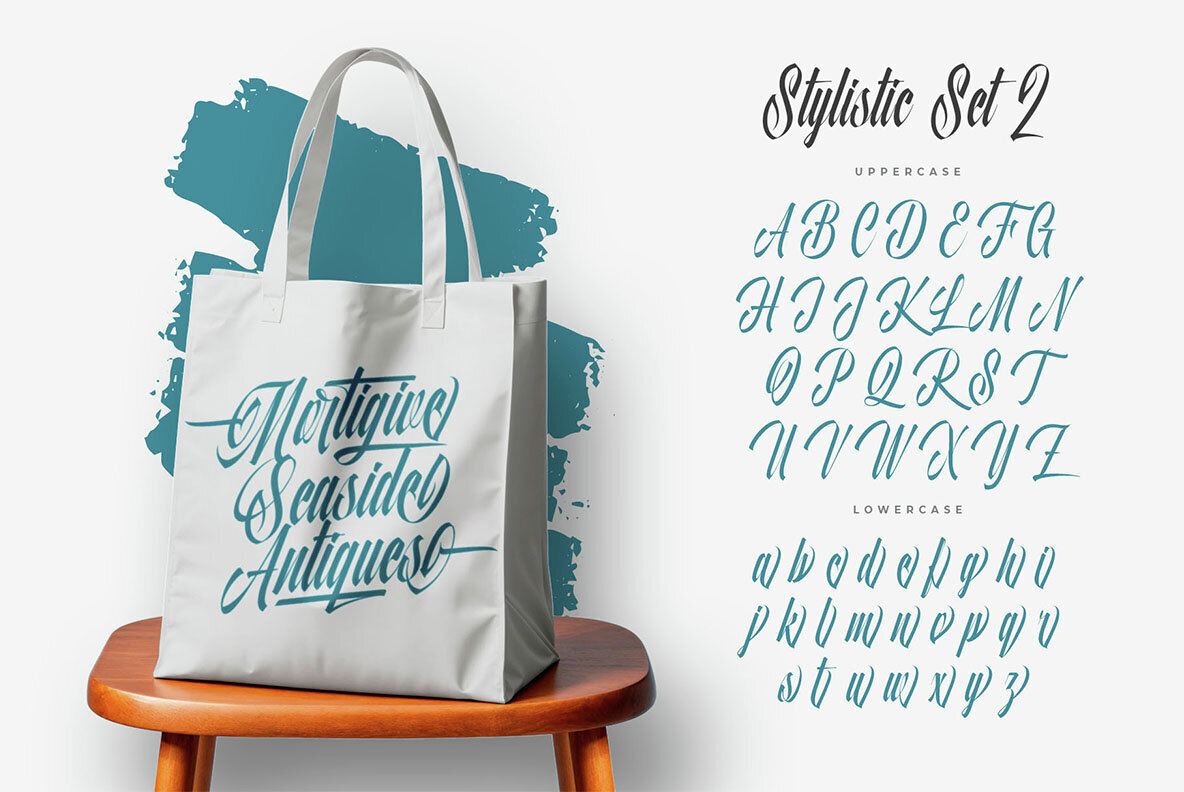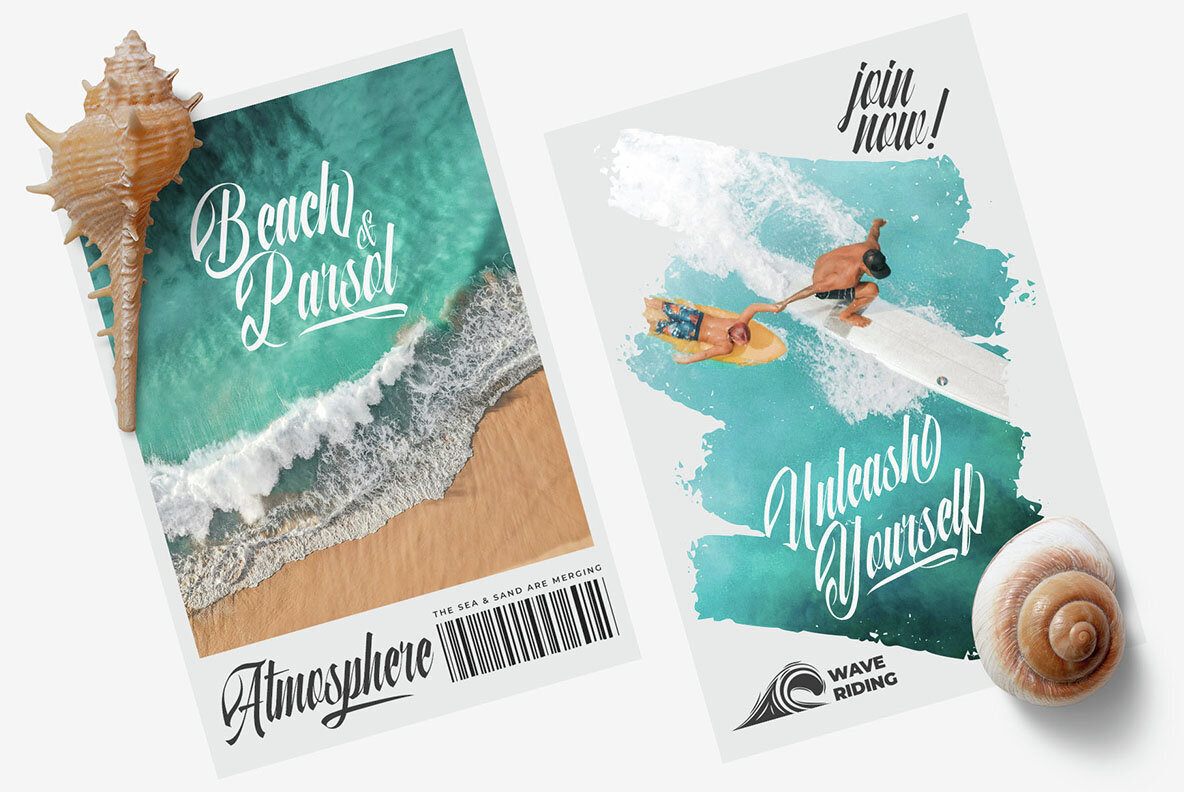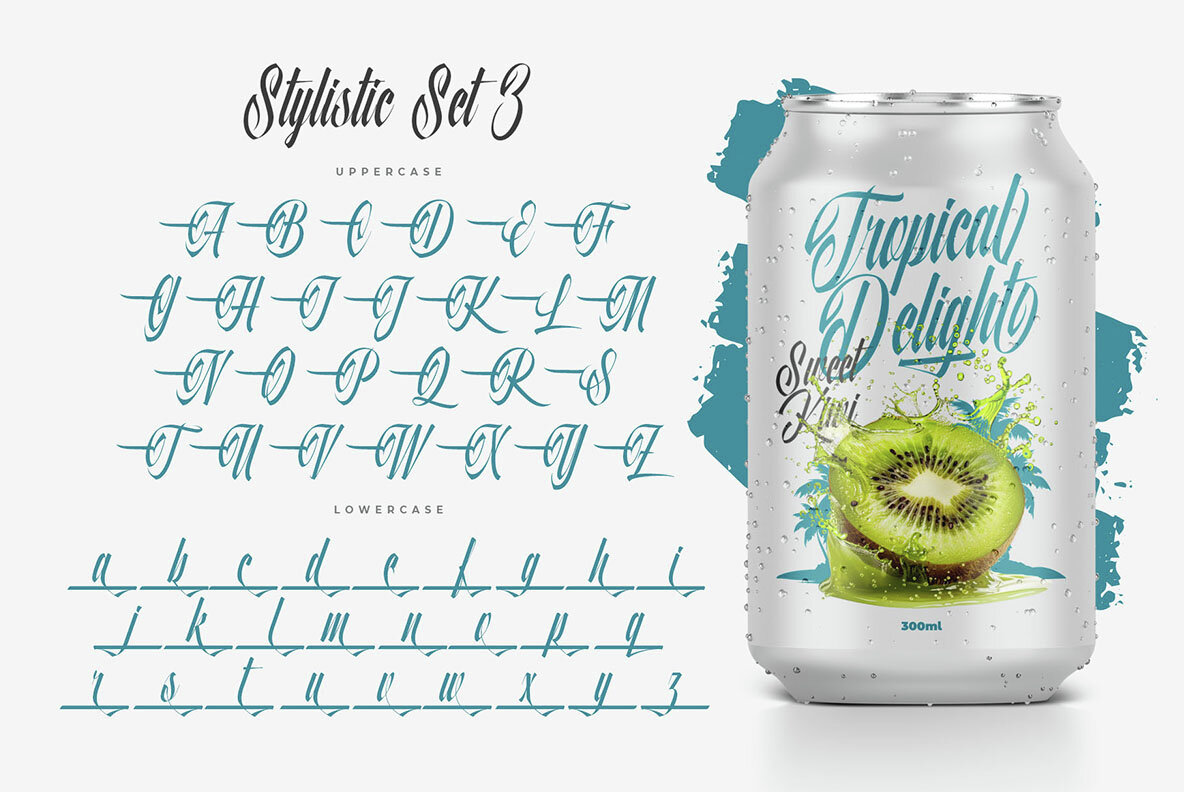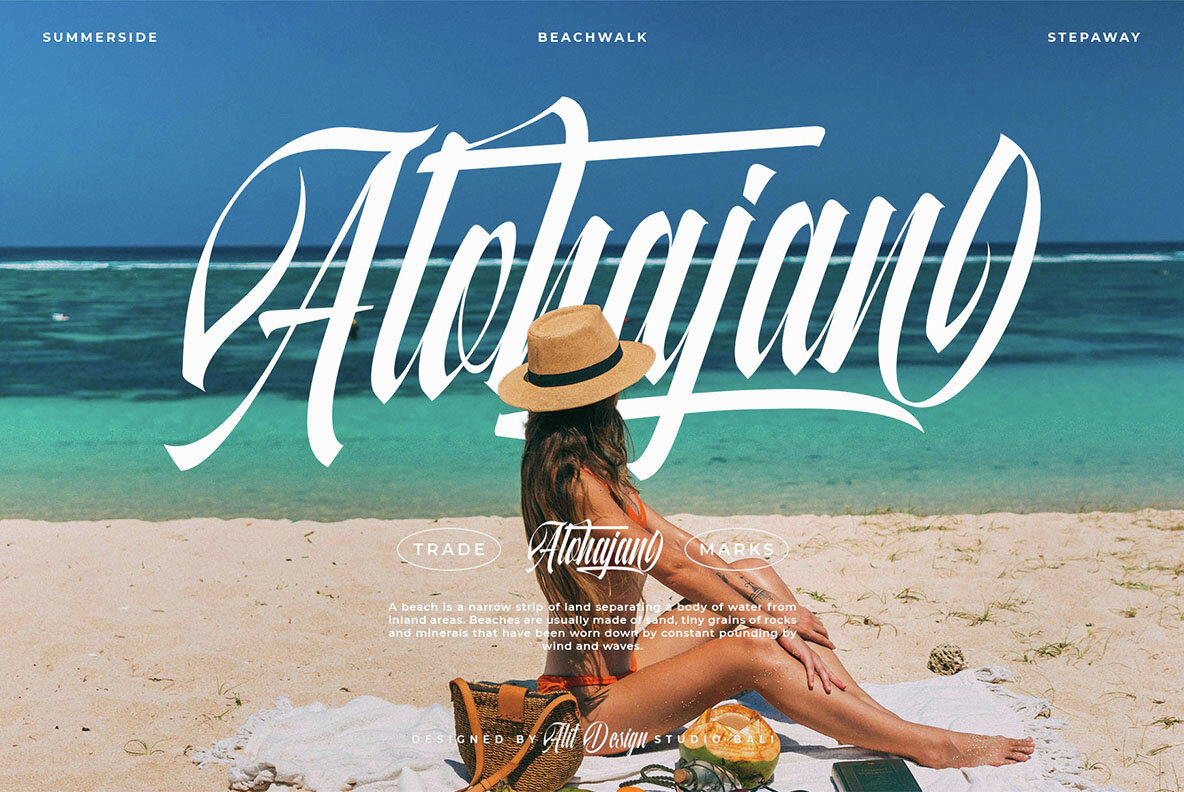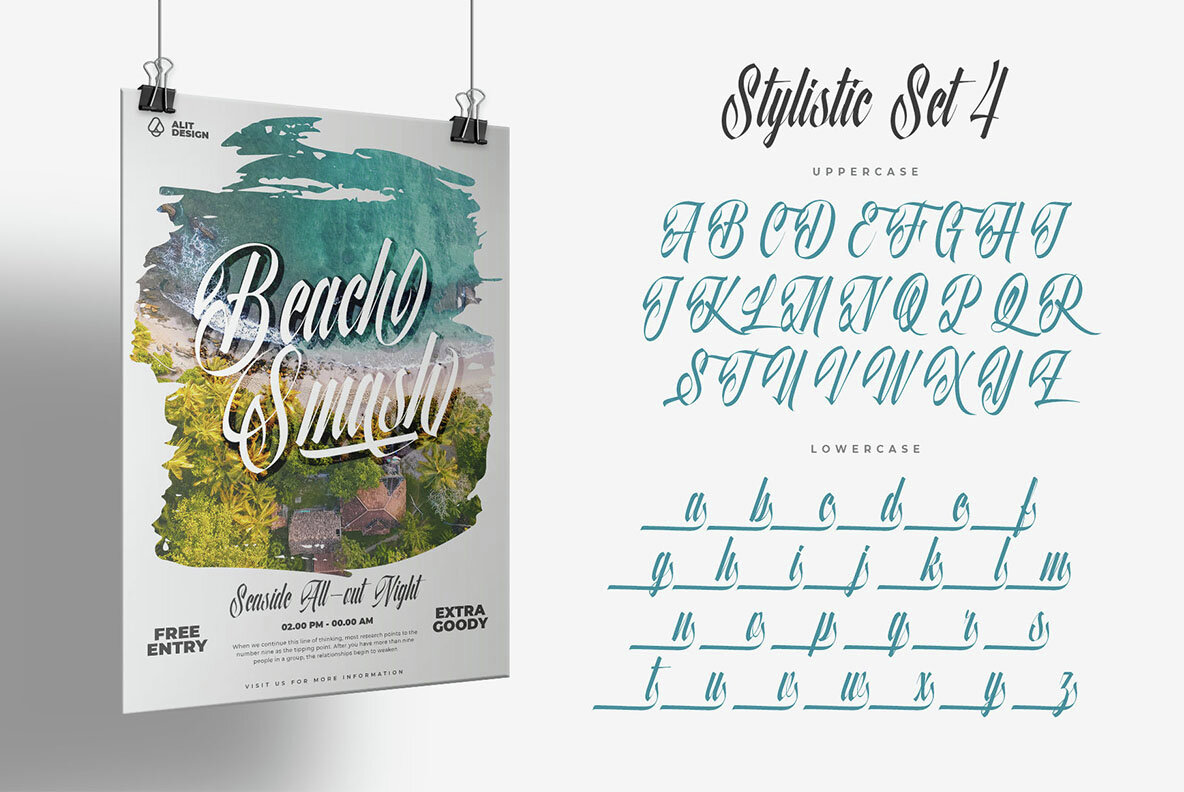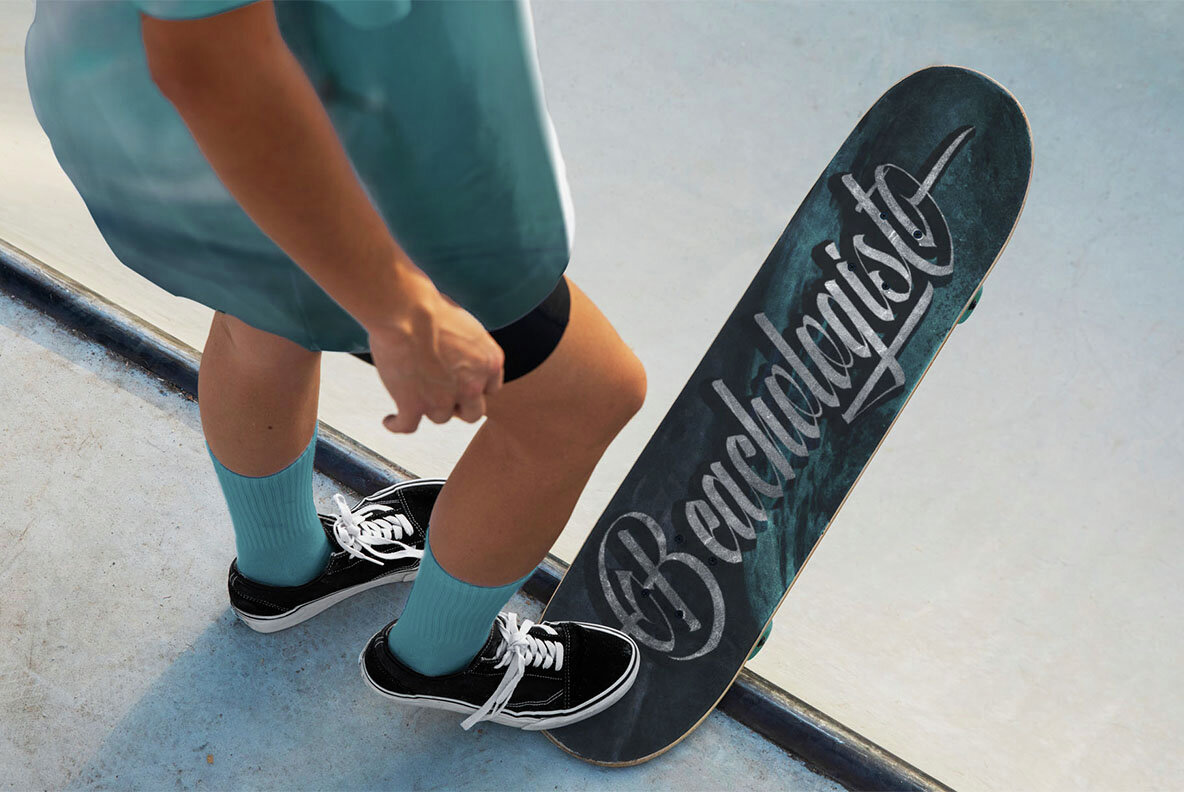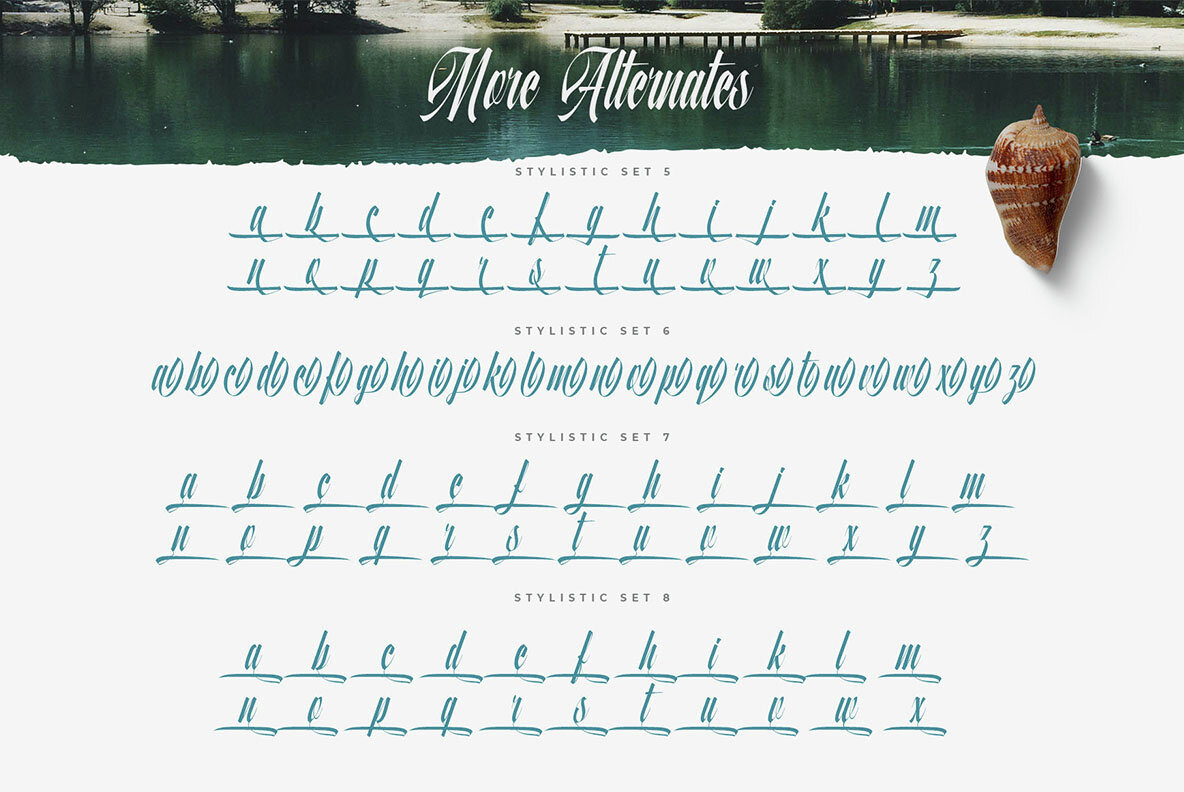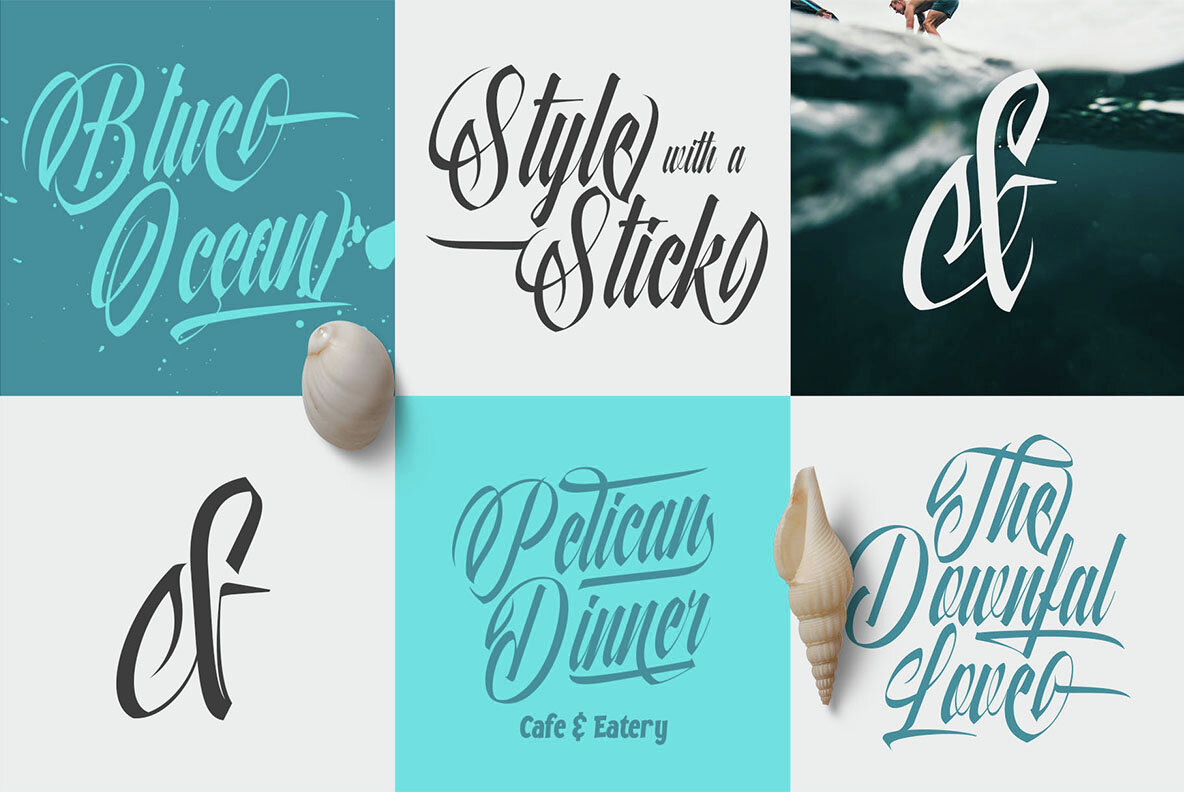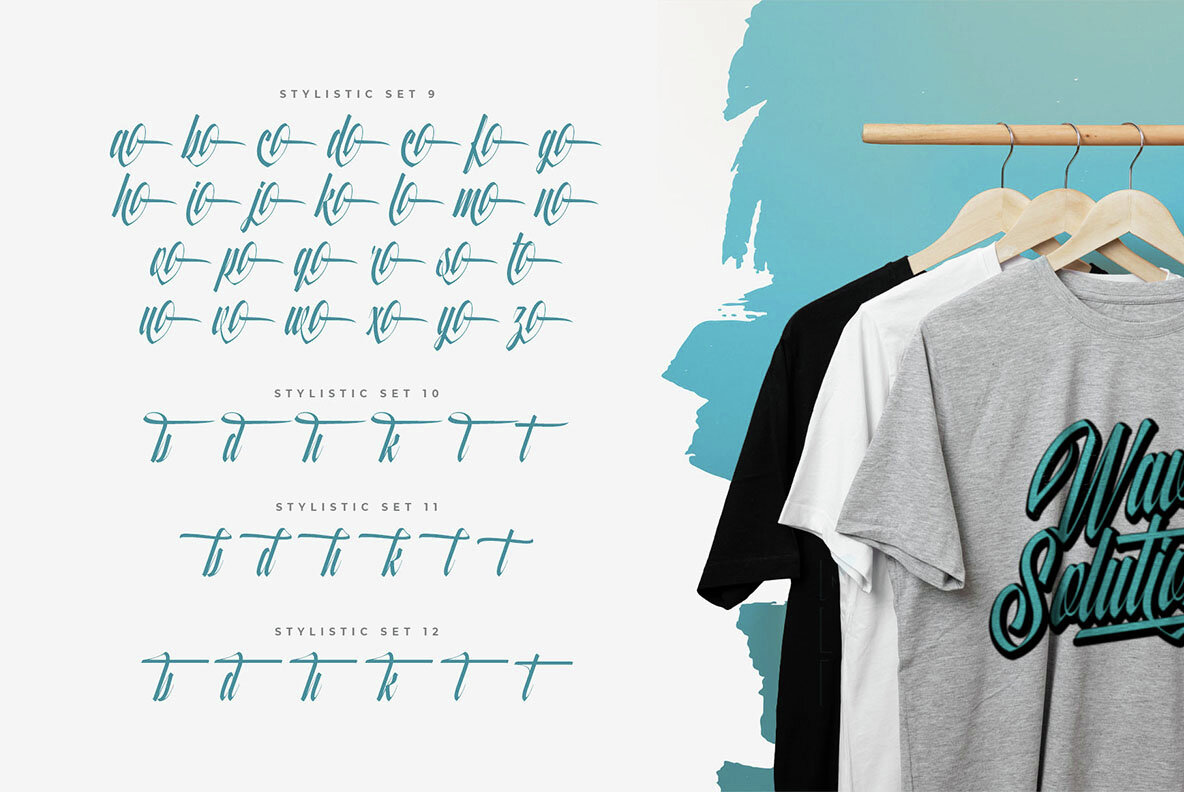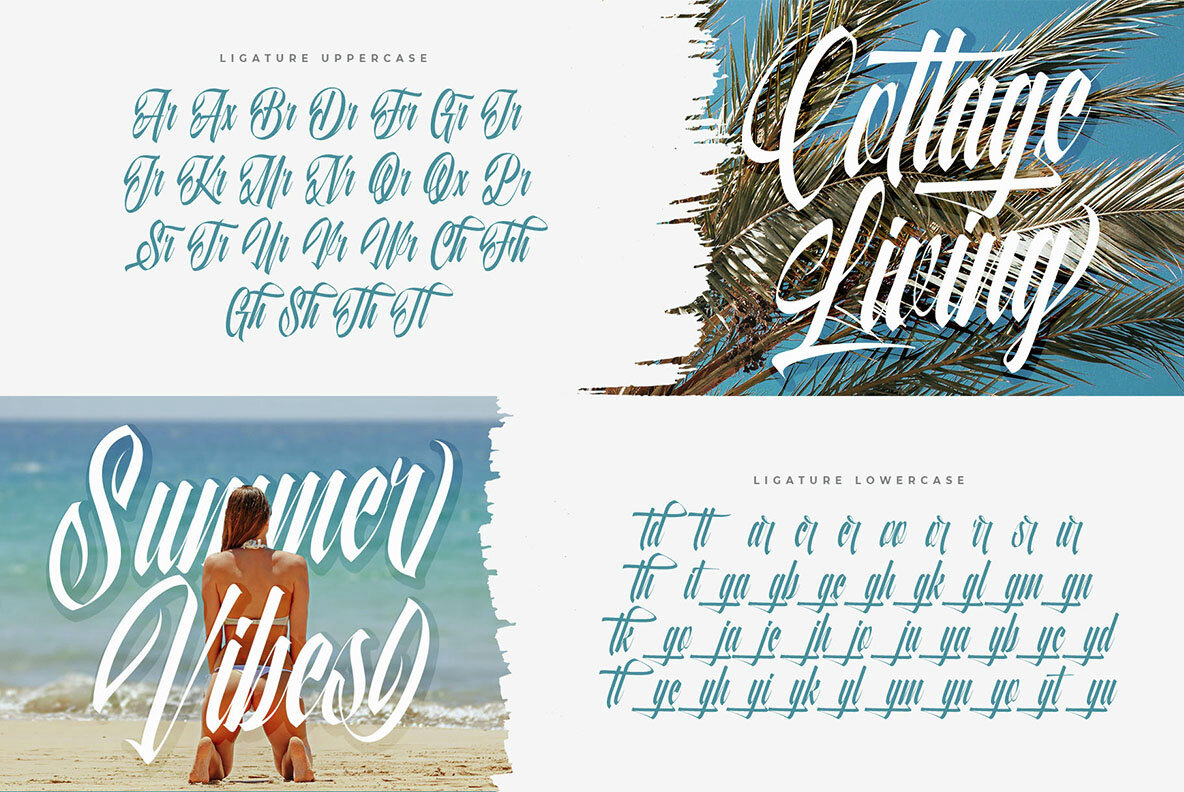
Quality Brazilian Font
Quality Brazilian Regular
Capture the vibrant essence of Brazil with the Quality Brazilian Font, a masterfully designed typeface that embodies the lively spirit of summer. This dynamic and fierce script brings a sense of speed and energy to your projects, making it ideal for beach party invitations, tropical travel brochures, and any design that needs a touch of Brazilian flair. Bold and assertive, this font ensures your designs command attention and stand out.
Key features include beautifully crafted ligatures for smooth, connected letterforms and elegant swash characters that add sophistication and style. With a comprehensive character set of 891 characters, the Quality Brazilian Font offers unparalleled flexibility and creativity. Inspired by the fast-paced lifestyle of Brazilian cities, this versatile and lively font adapts to various design needs. Infuse your projects with the heat and vitality of Brazil and create eye-catching, memorable designs.